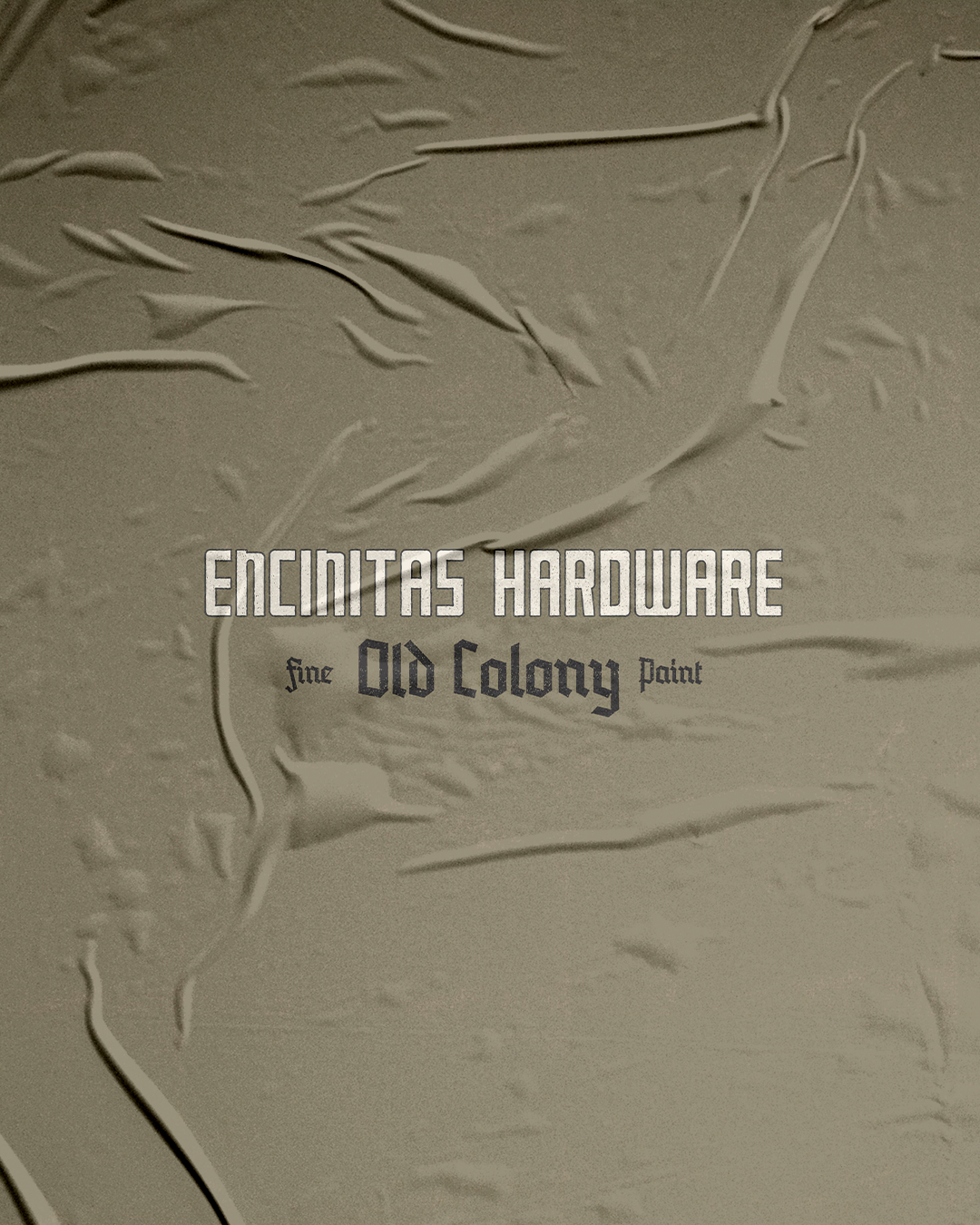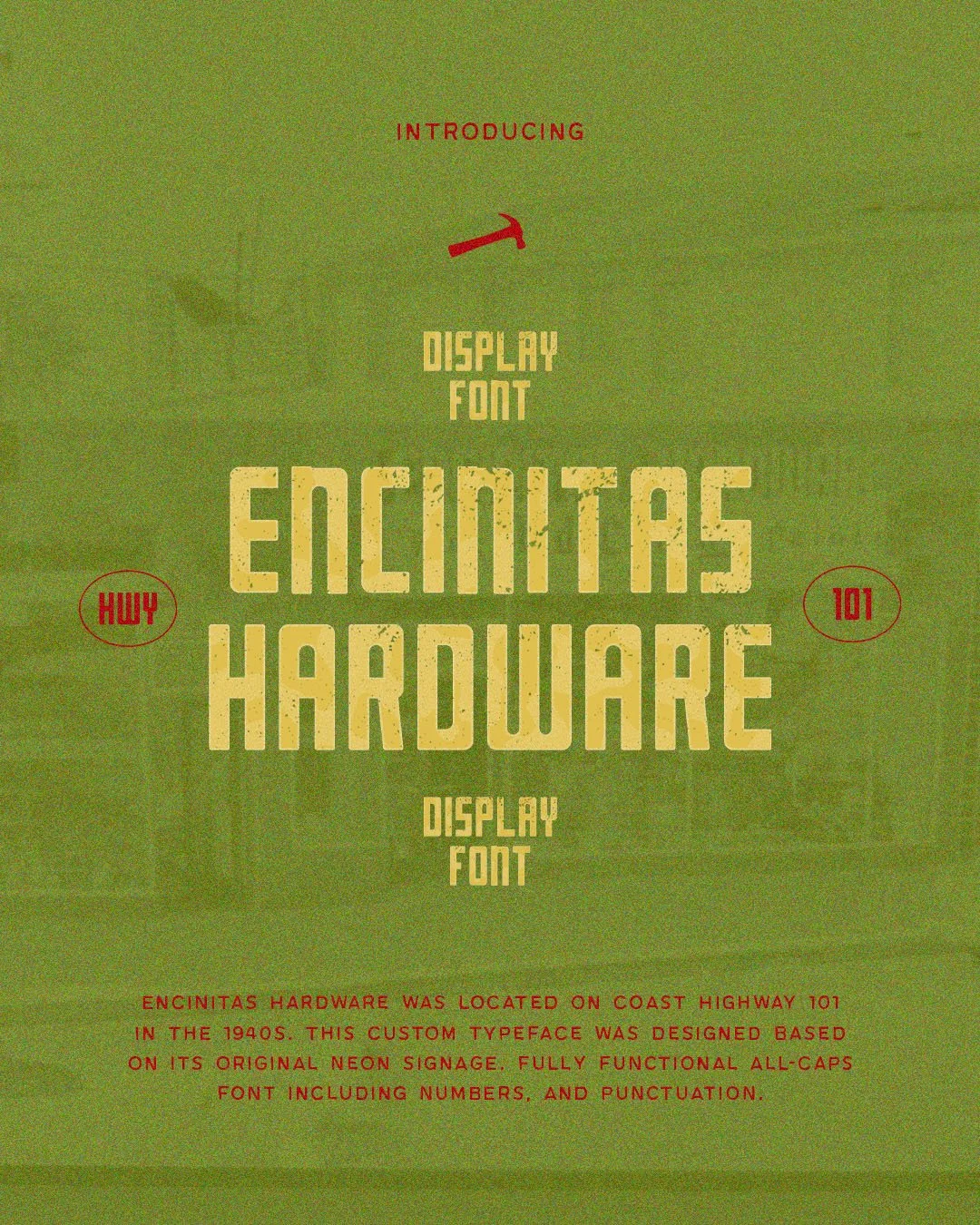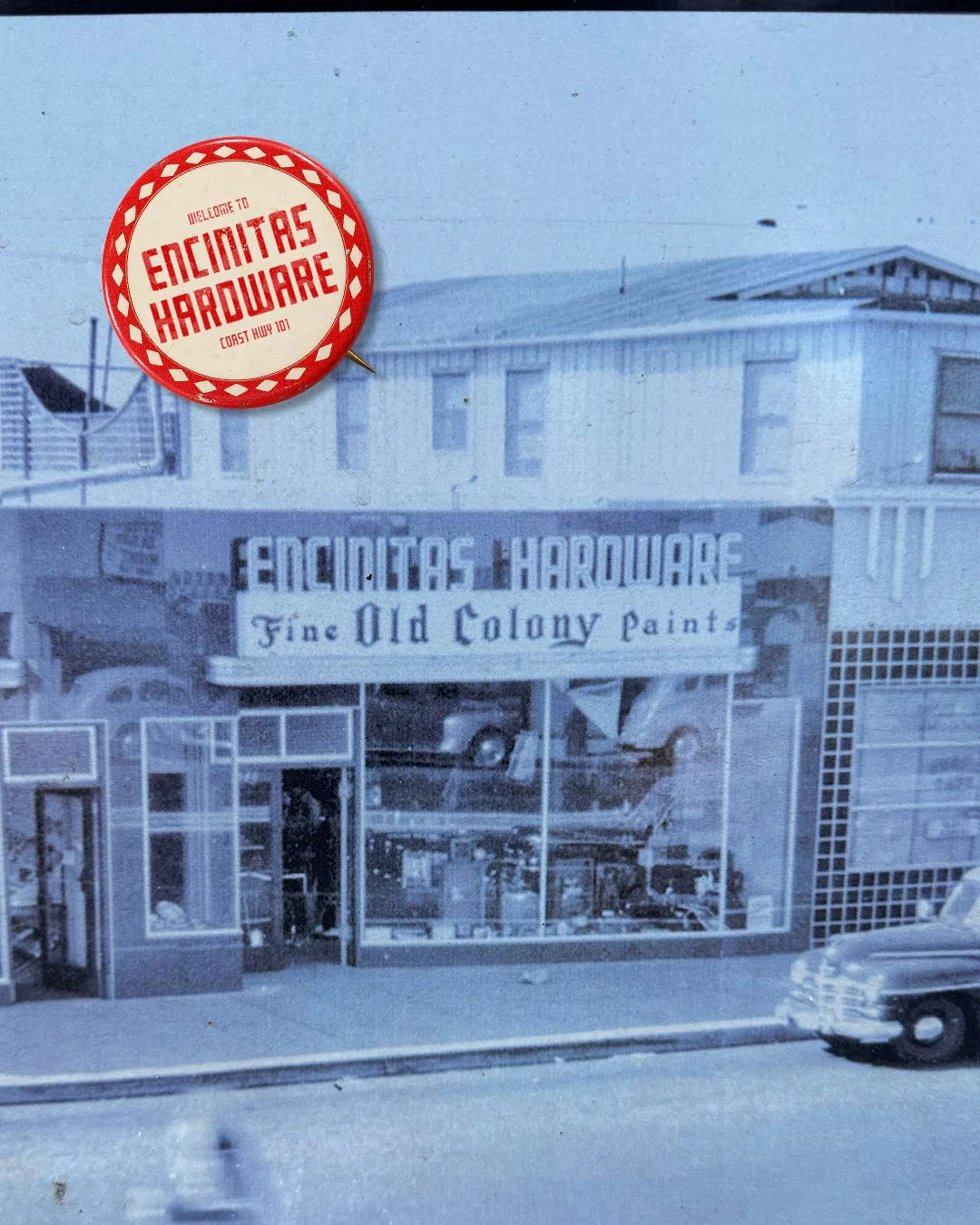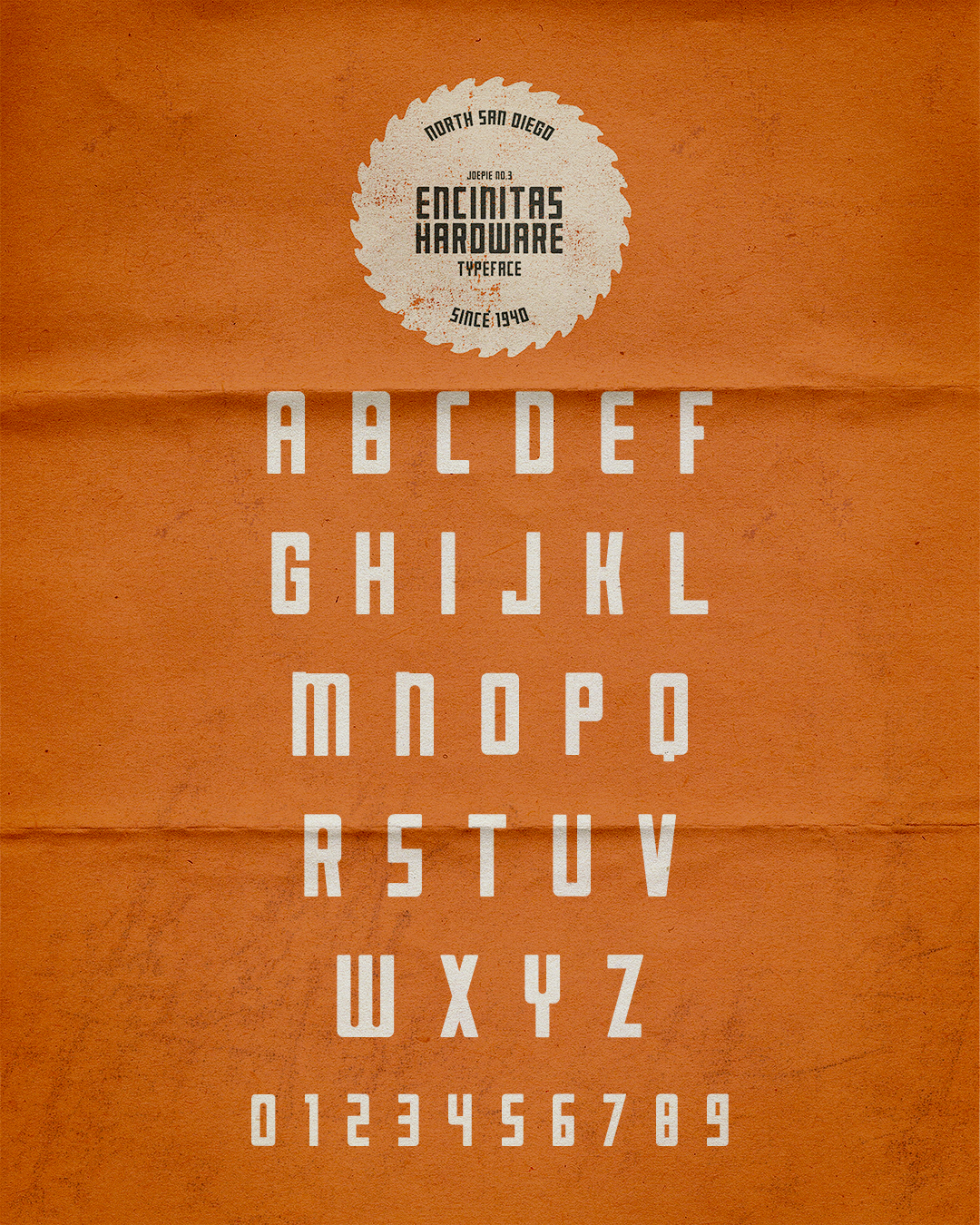
Encinitas Hardware is a vintage display font inspired by the original neon signage of a local hardware store that operated on Coast Highway 101 in Encinitas in the 1940s.
I built the typeface from an old photograph of the storefront. The surviving letters gave me enough to establish the proportions, shapes, and visual rules of the original sign. From there, I drew the rest of the alphabet, expanding a handful of letters into a complete typeface while staying true to the character of the original.
The result is a bold, all-caps font that feels distinctly mid-century without feeling overly polished or recreated. It’s also become one of those fonts I find myself using all the time.